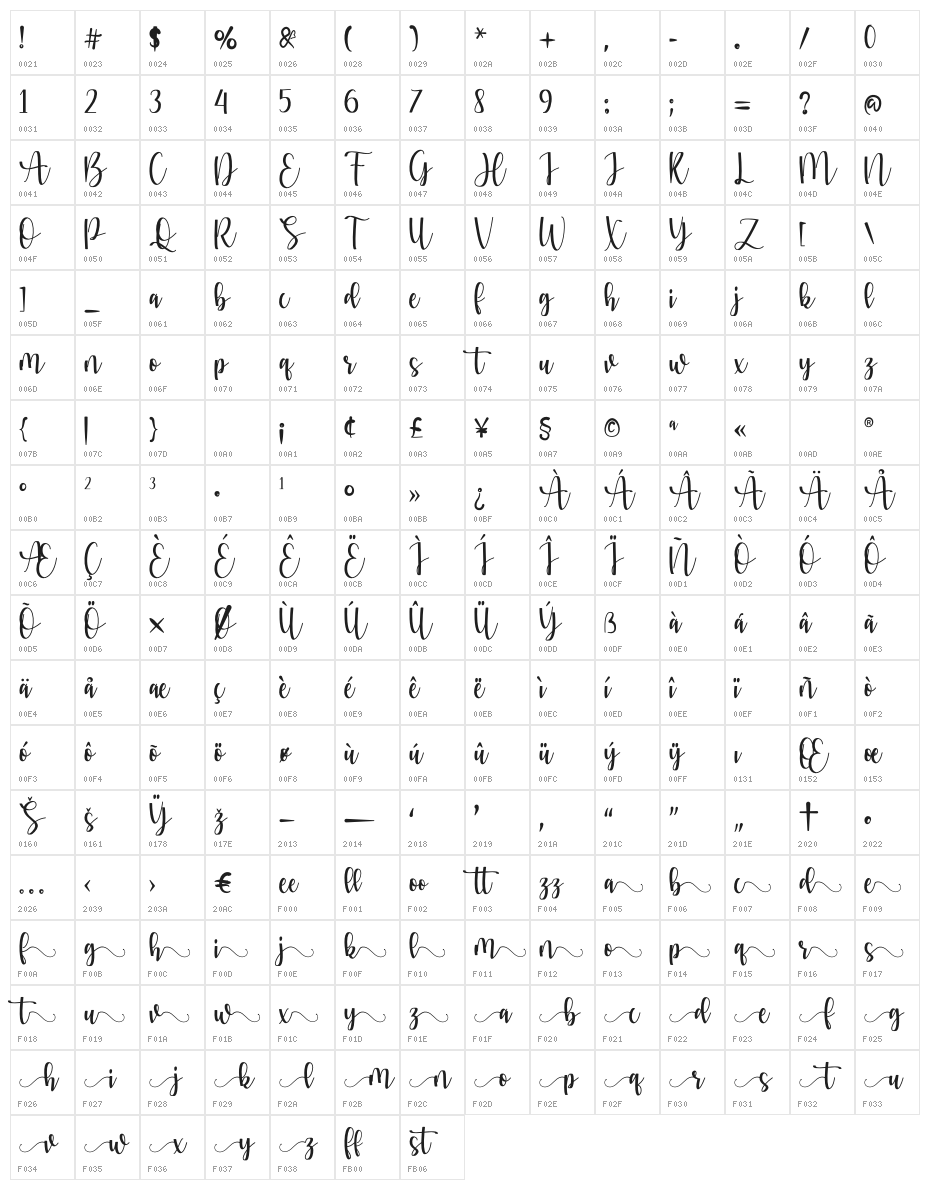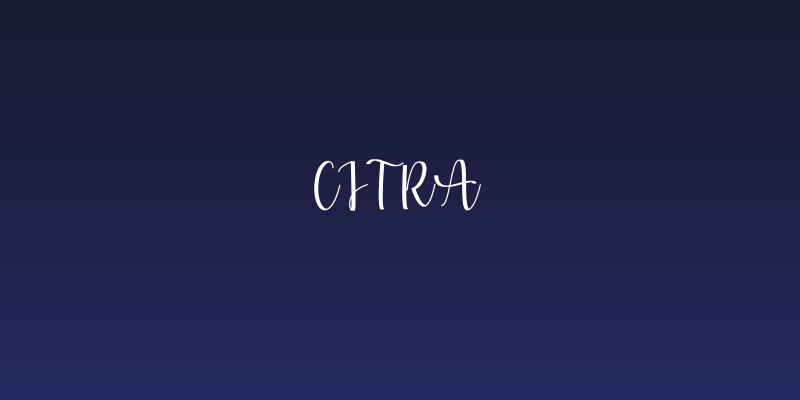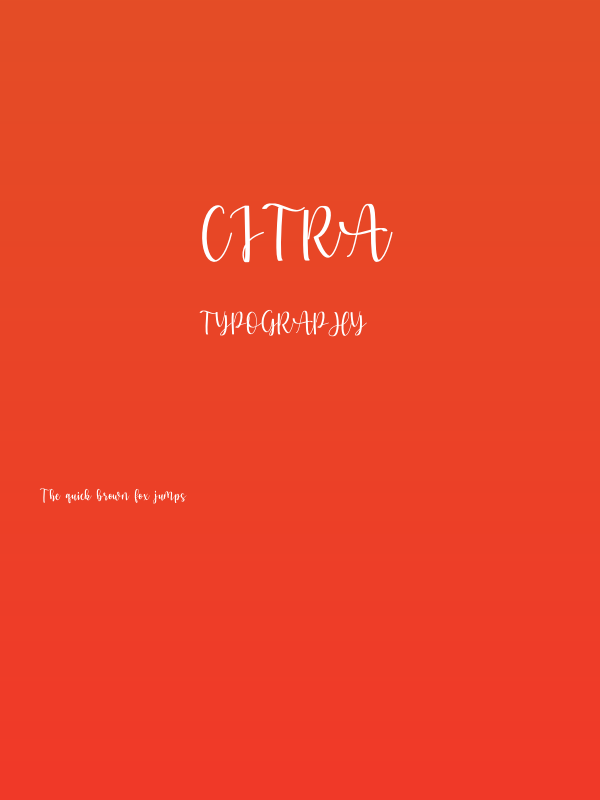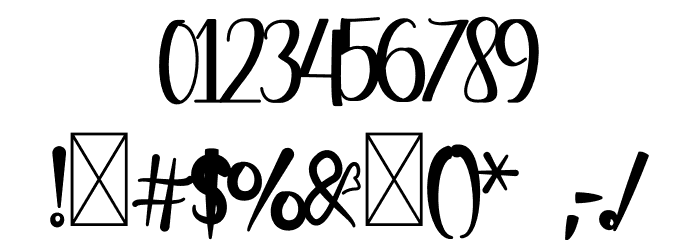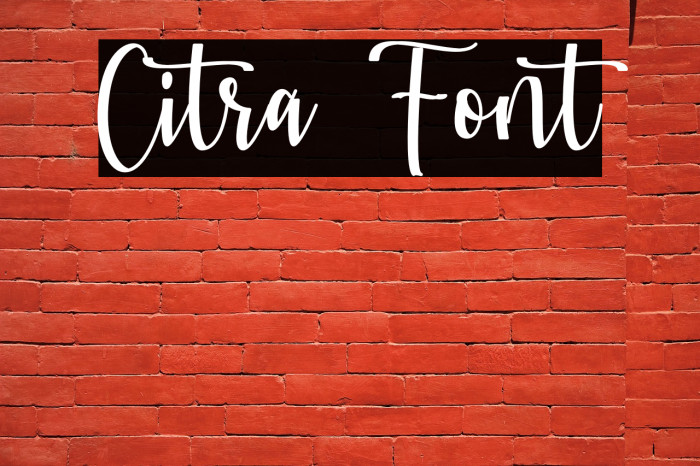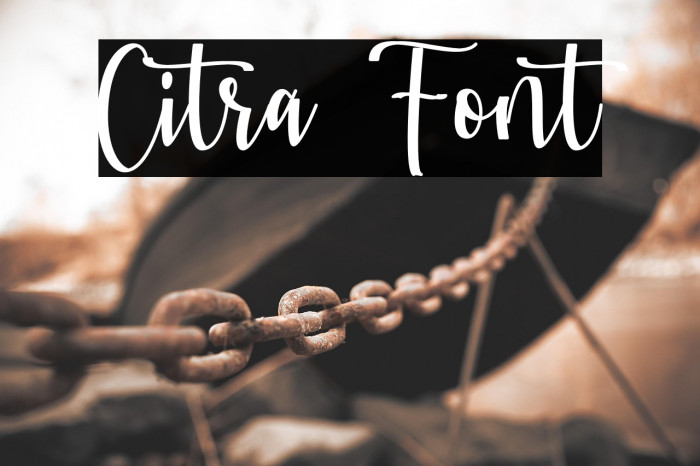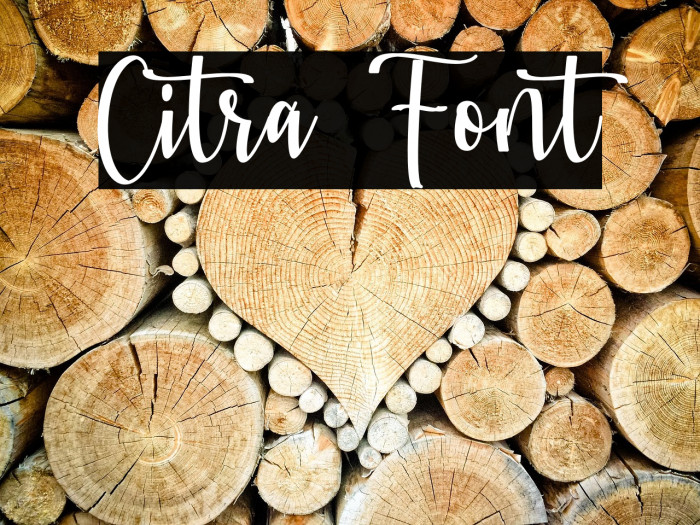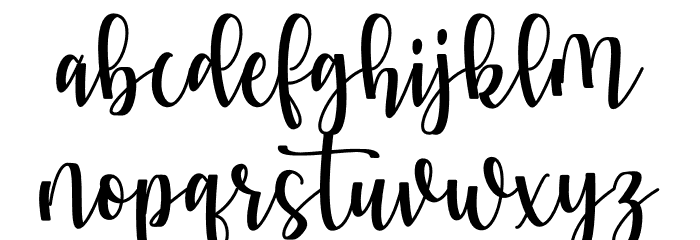
Citra Font
Citra Description
This font features a lively and expressive script style, characterized by its flowing, cursive letterforms. The uppercase letters are bold and dynamic, with a playful loop and swash that adds a sense of movement. The lowercase letters maintain a consistent flow, with smooth connections between characters, enhancing readability while preserving the font's artistic flair. The numerals are equally expressive, with a slight slant that complements the overall design. Special characters, including punctuation and symbols, are crafted with the same attention to detail, ensuring a cohesive look across all text elements.
| Proposed Projects | Ideal for wedding invitations, greeting cards, branding projects, and social media graphics. |